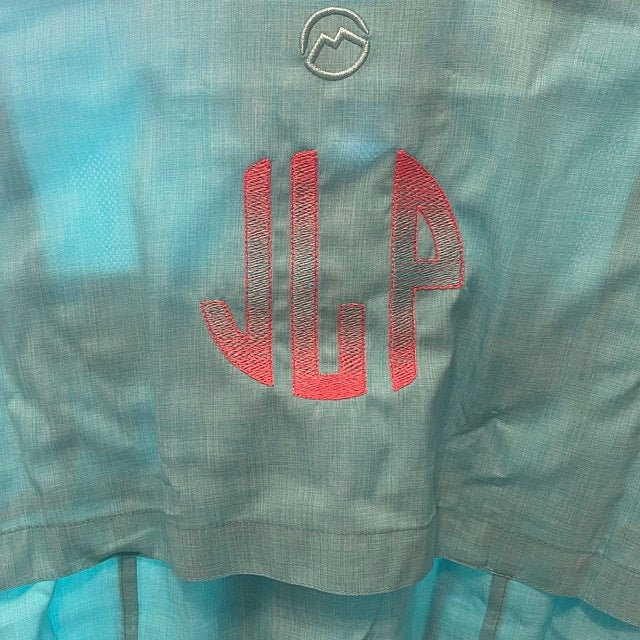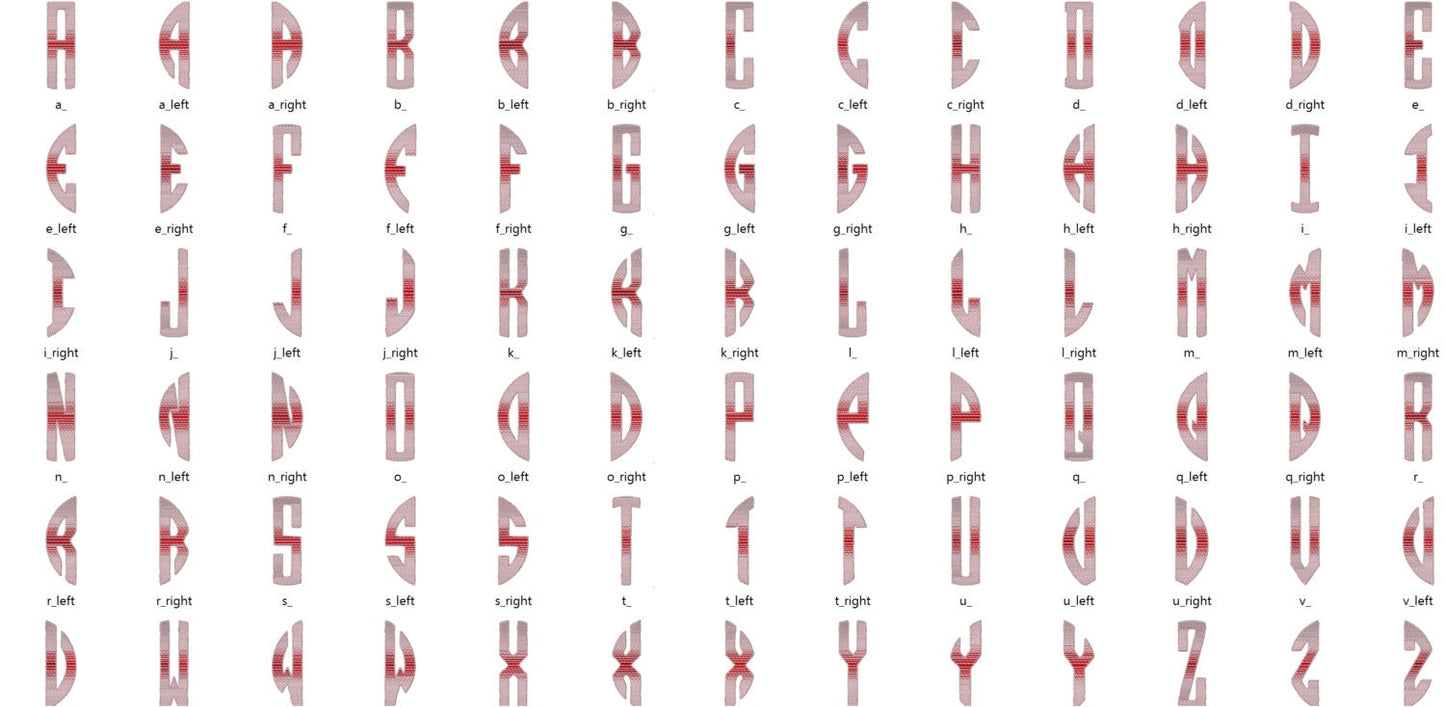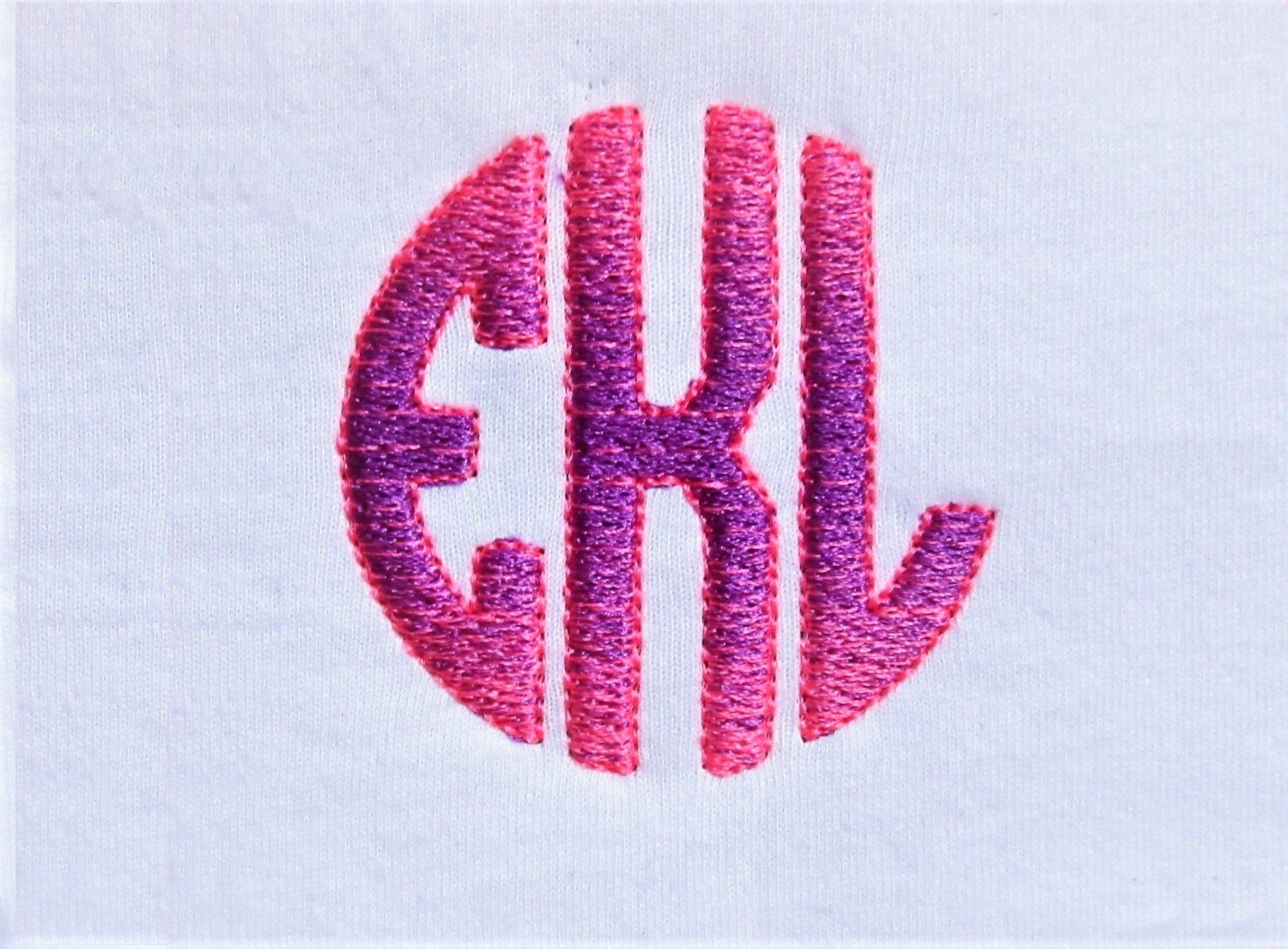
Or click to open the linkAn iridescent three-letter circle monogram stitched with two ordinary thread colors that blend like an ombre, no special thread needed. Lovely for towels, pillows, tote bags and gifts.
All 26 letters come as left, center and right pieces, 78 in total, in four sizes: 2.4, 3, 3.7 and 4.3 inches. Fill stitch in two thread shades, going from light to dark and back.